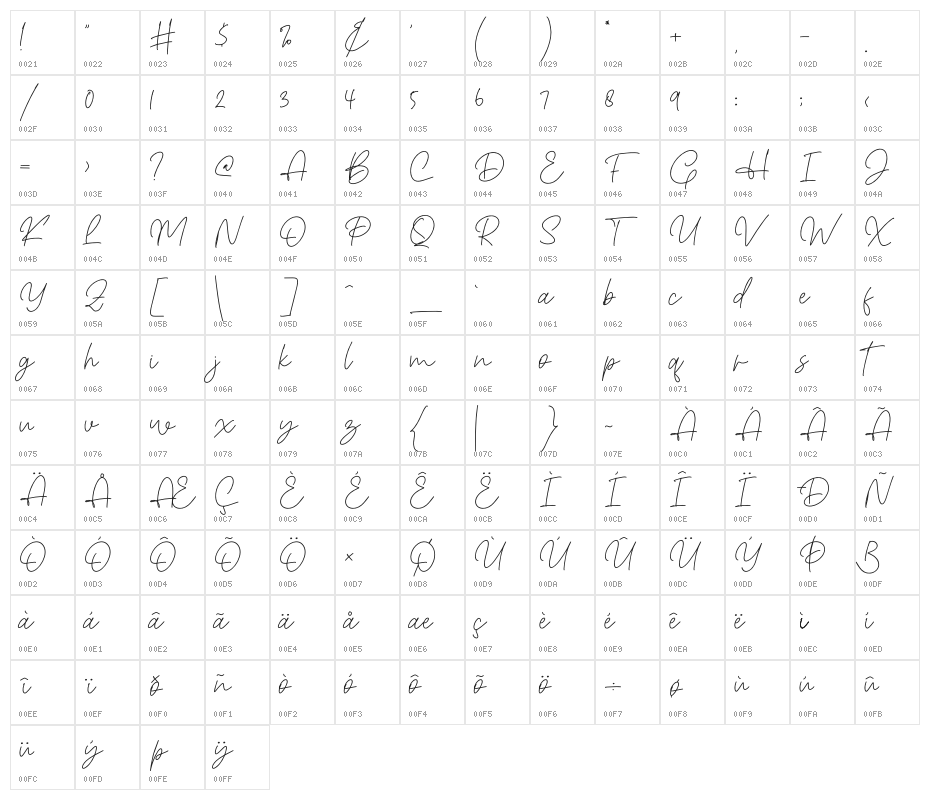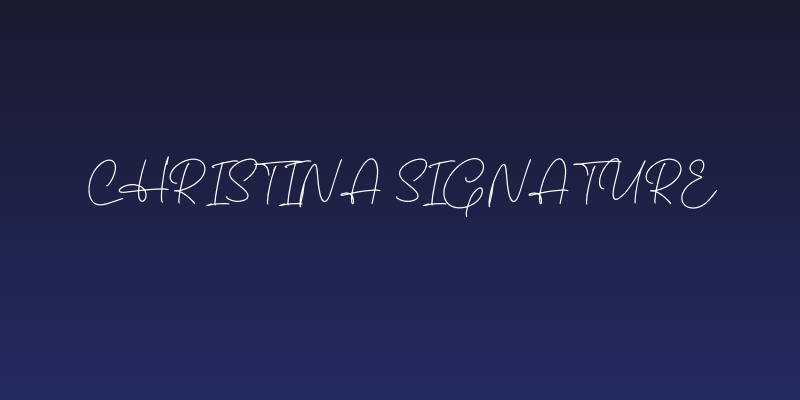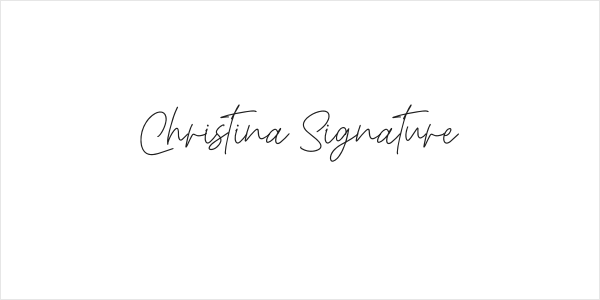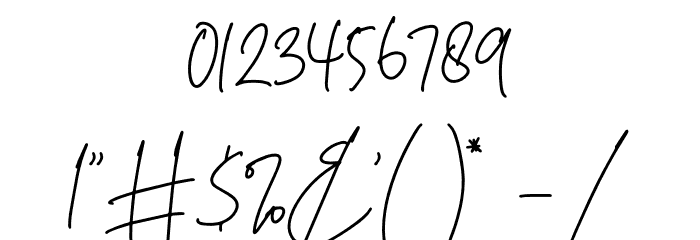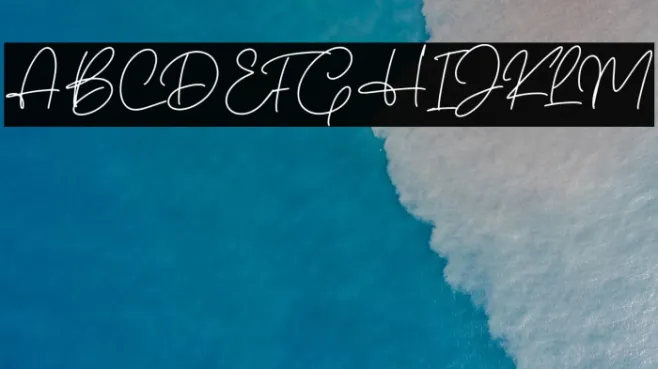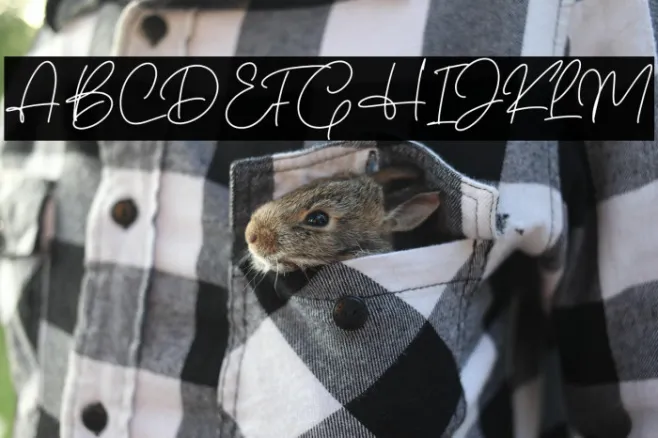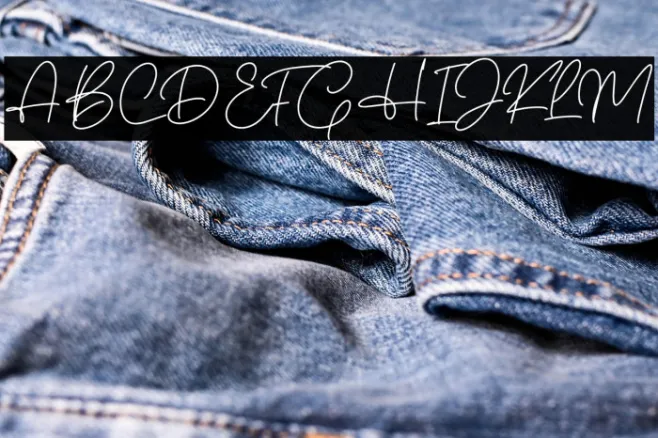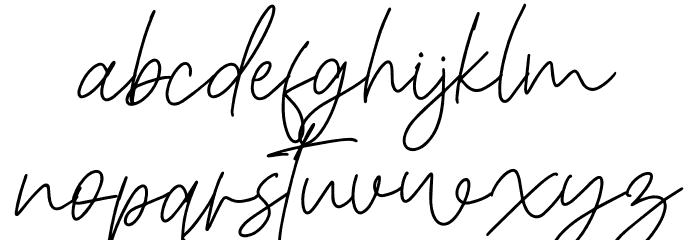
Christina Signature Font
Christina Signature Description
This elegant script font exudes a sense of sophistication and fluidity, characterized by its graceful, flowing lines and delicate curves. Each letter seamlessly connects to the next, creating a harmonious and continuous script that mimics the natural motion of handwriting. The uppercase letters stand tall with a slight slant, while the lowercase letters maintain a consistent rhythm and balance. The numerals and special characters are crafted with the same attention to detail, ensuring a cohesive look throughout. The font's thin strokes and high contrast give it a refined and polished appearance, making it ideal for projects that require a touch of elegance and personal flair.